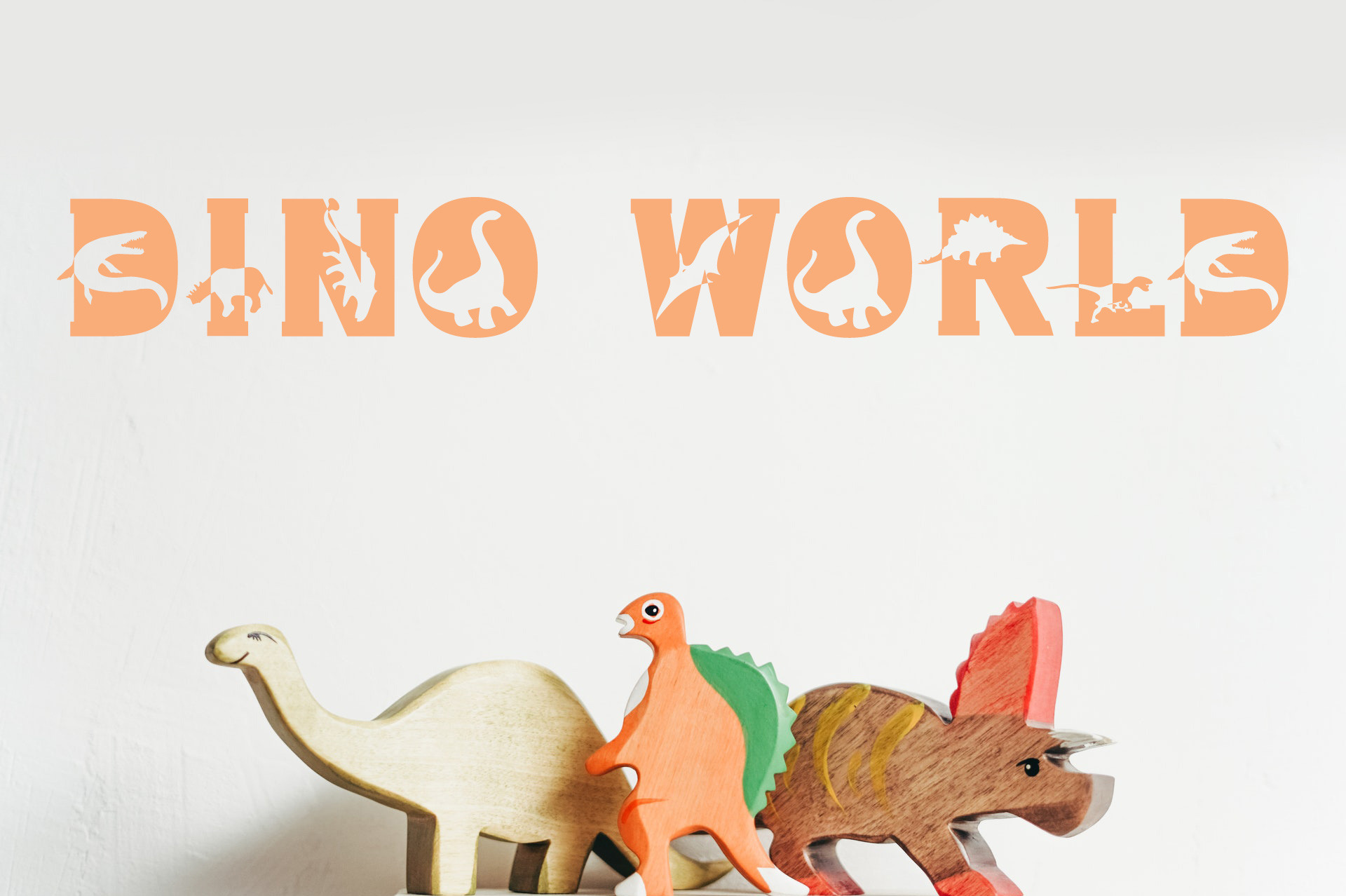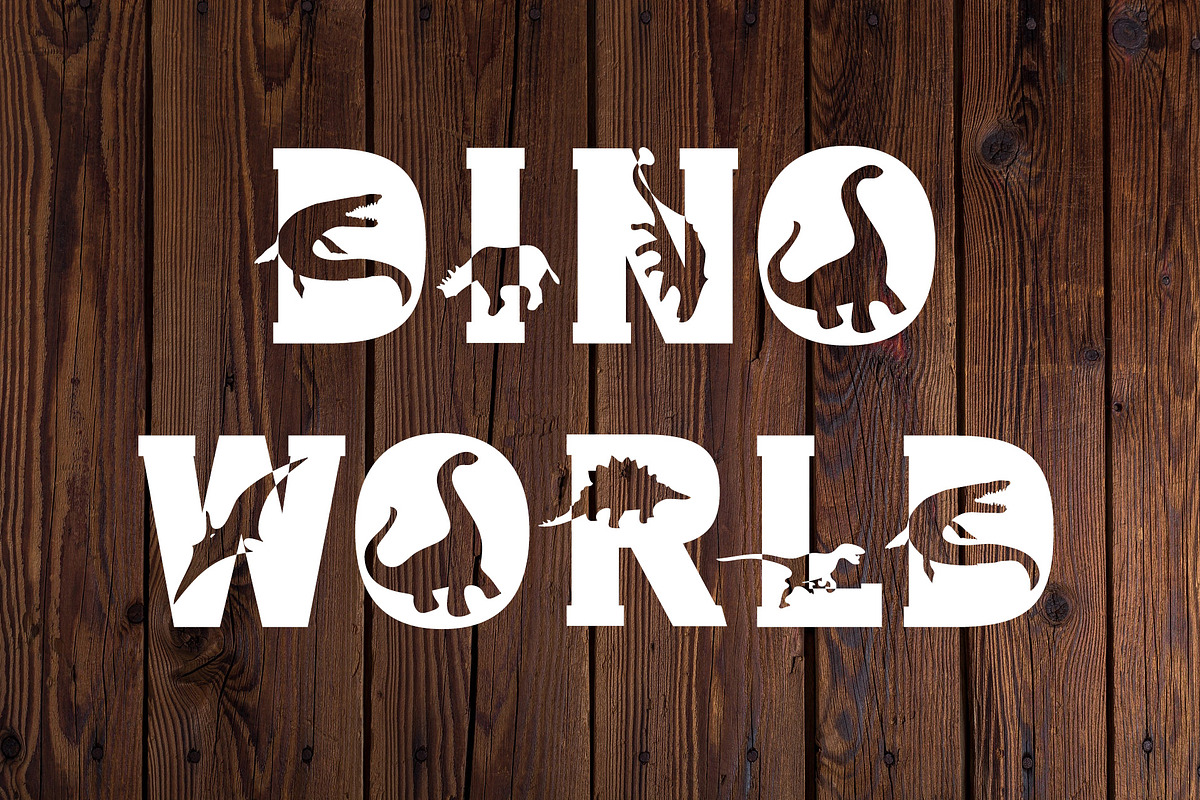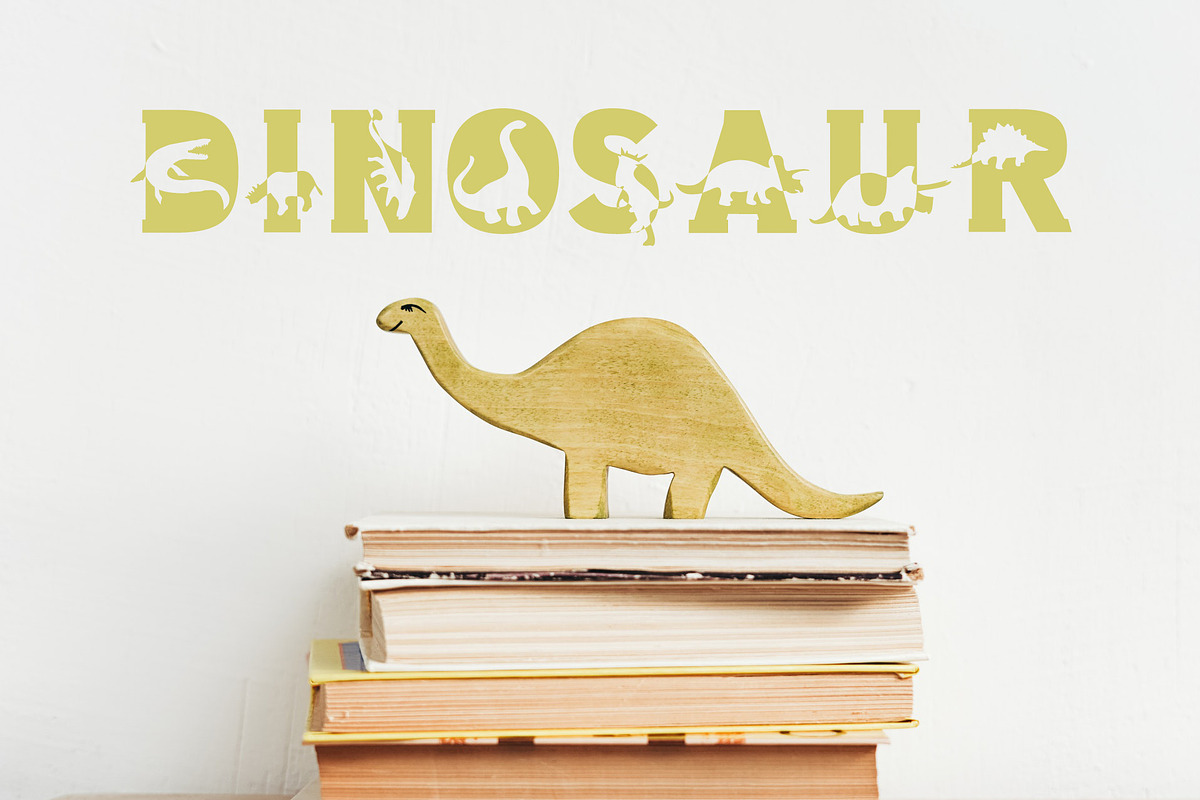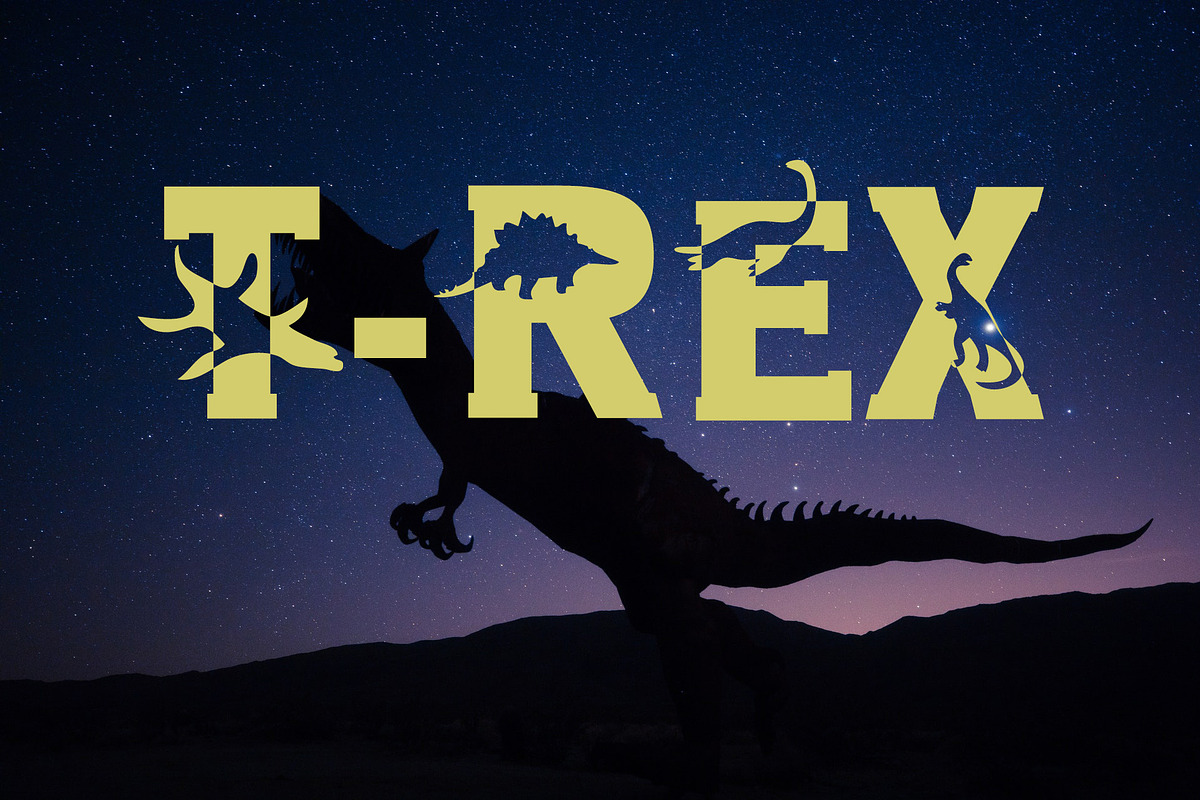
Dino World - Dinosaur Font
Dino World is a dinosaur-themed font that is perfect for any dinosaur lover. Dino World great dinosaur font for kids. This font is perfect for creating invitations, decorating walls, or even making your own dinosaur-themed clothing. Dino World is a fun and unique font that is sure to make any project stand out.
It features dinosaurs-themed characters and will add a exquisite and fun look to any kids and school projects!